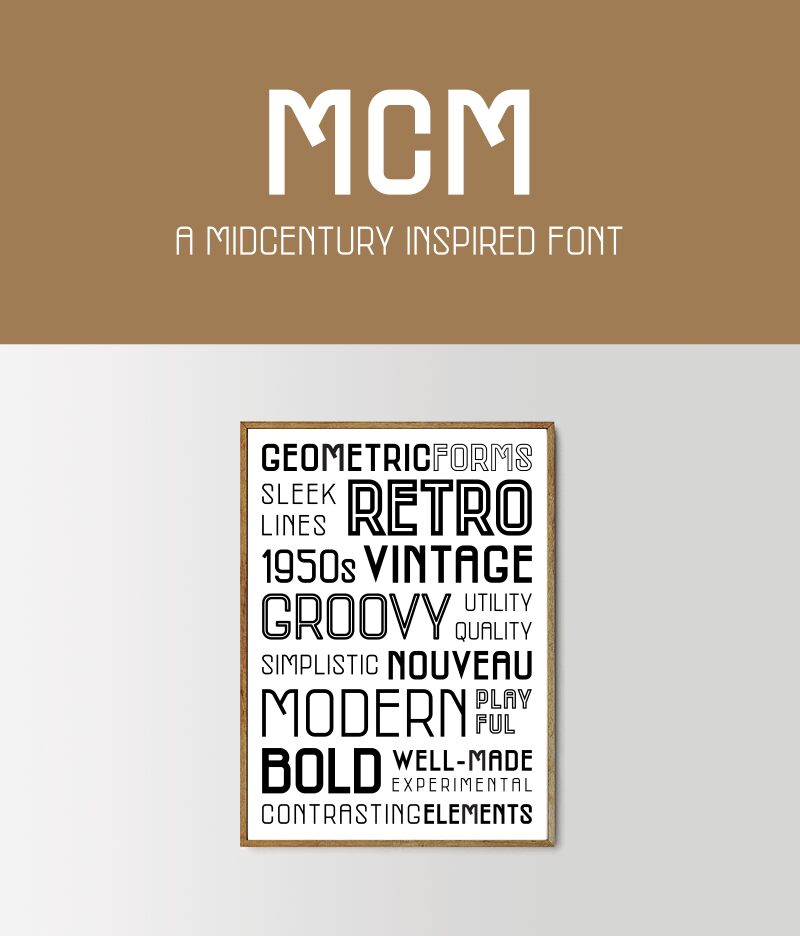
MCM Bold
MCM Bold, designed by Rachel San, is a captivating sans-serif font that exudes a harmonious blend of modern elegance and timeless sophistication. Its sharp, geometric letterforms and clean lines create a sophisticated and visually striking aesthetic, making it a compelling choice for a wide range of design projects.
The font's distinct character and bold presence lend it an air of authority and confidence, making it an excellent selection for headings, titles, and impactful visual elements. Whether embracing a minimalist or contemporary design approach, MCM Bold's versatility shines through, allowing designers to achieve a polished and memorable visual identity across various mediums.